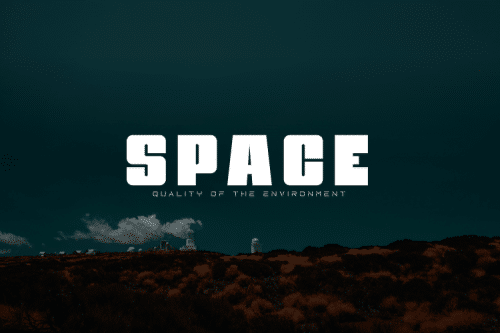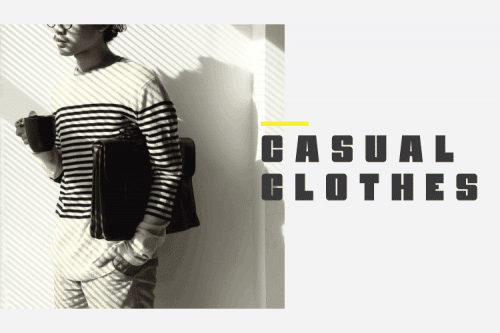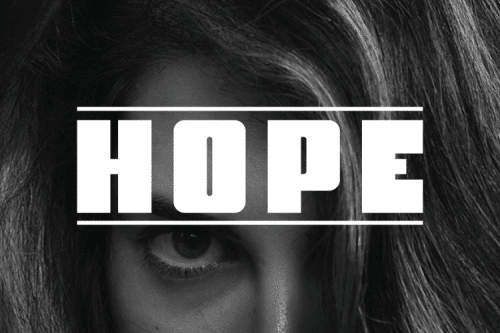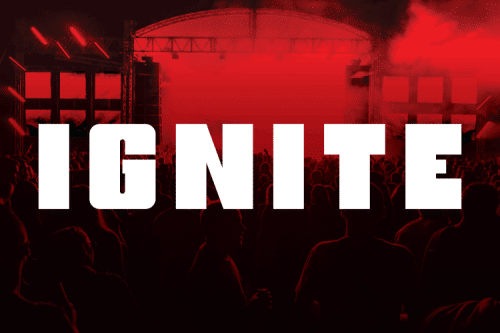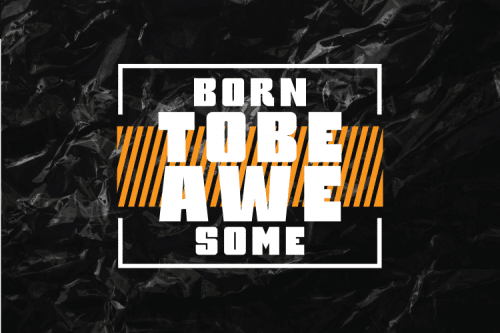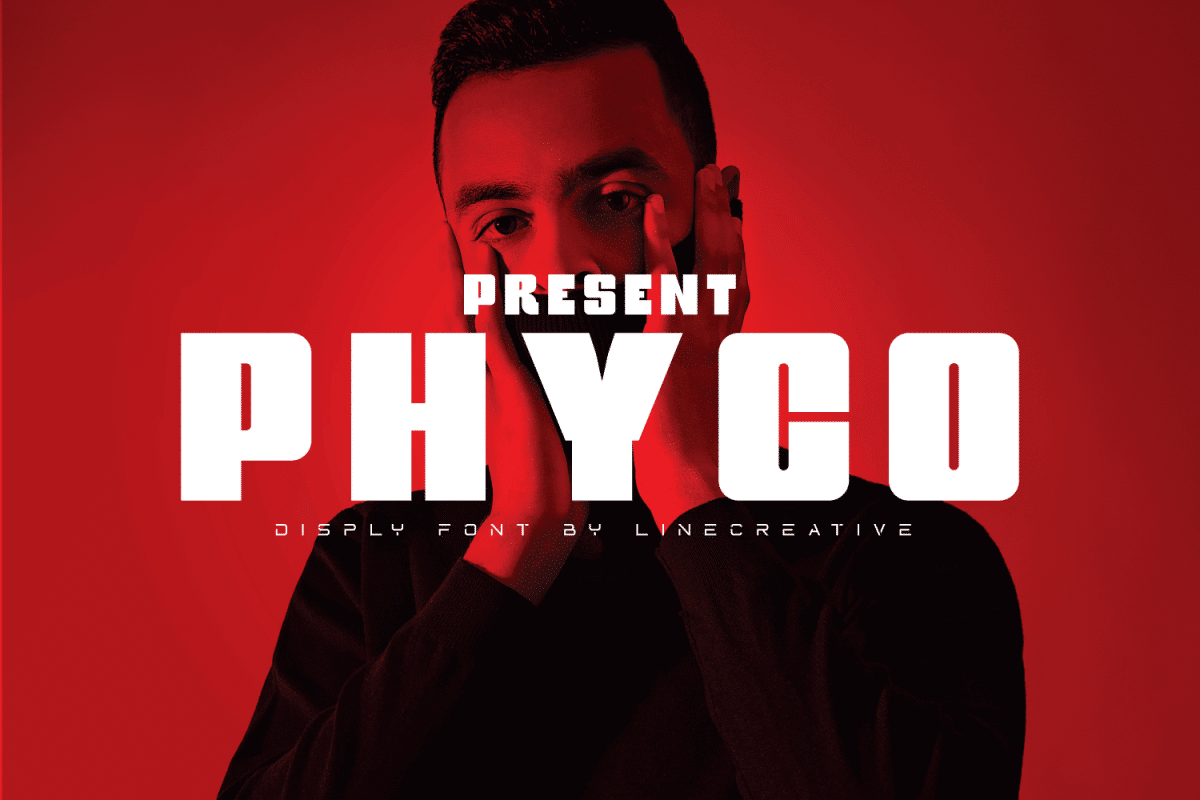
Phyco Display Font – bold display and fat sans serif font, that gives a strong and brave, This font is very suitable for use as headlines, posters, titles, branding, t-shirt printing and other graphic designs.